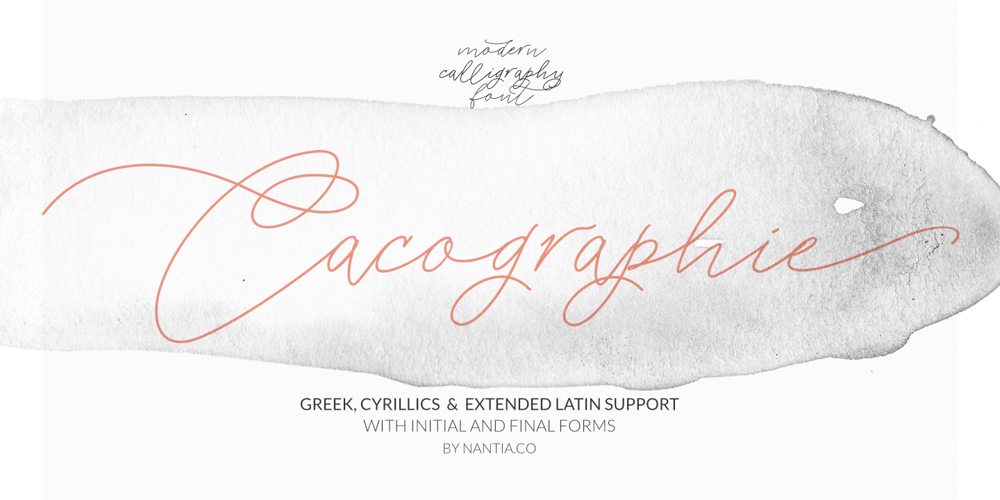
Cacographie Font Family was designed by Konstantina Louka and published by Nantia.co. Cacographie contains 4 styles and family package options. The Cacographie Calligraphy Font is a signature decorative font with which you can achieve a handwritten-type lettering feeling. Cacographie Calligraphy Font it’s a multilingual lettering font with Greek (of course), Latin character set, and diacritics. This calligraphy style is perfect for your modern graphic design needs. This font has a really nice flow so you use it in a large text if you want to give them a touch of personality. It can be used on social media content, for branding or packaging.